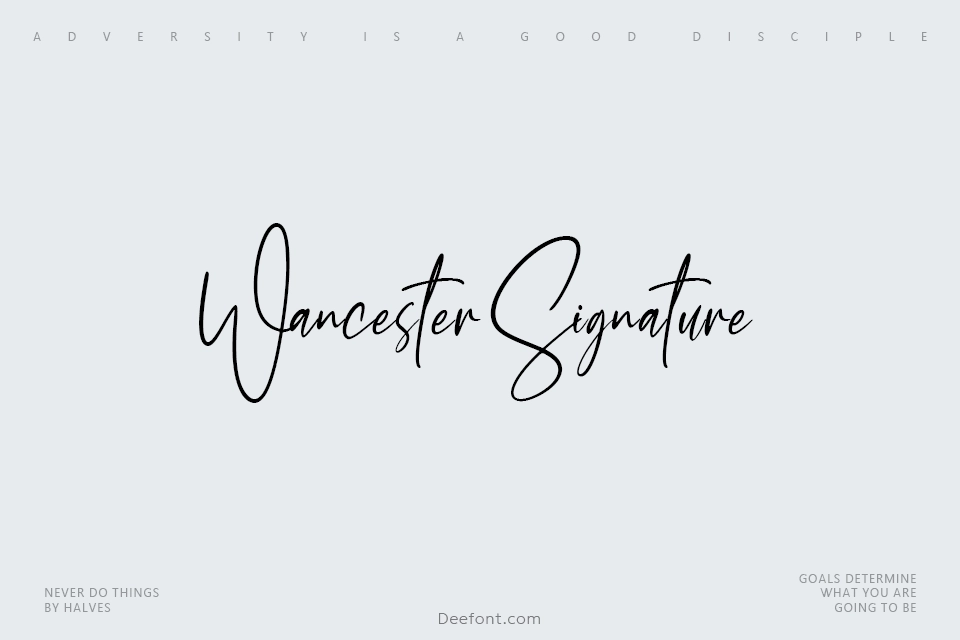
Wancester Signature Font
Wancester Signature is an elegant handwritten script font featuring smooth lines, varying baseline, and gorgeous glyphs. This delicate typeface is perfect for creative designs, offering beautiful and well-balanced characters that bring sophistication to invitations, greeting cards, branding projects, and decorative typography. The font’s flowing strokes and stunning alternates make it ideal for adding an elegant touch to your most creative ideas.